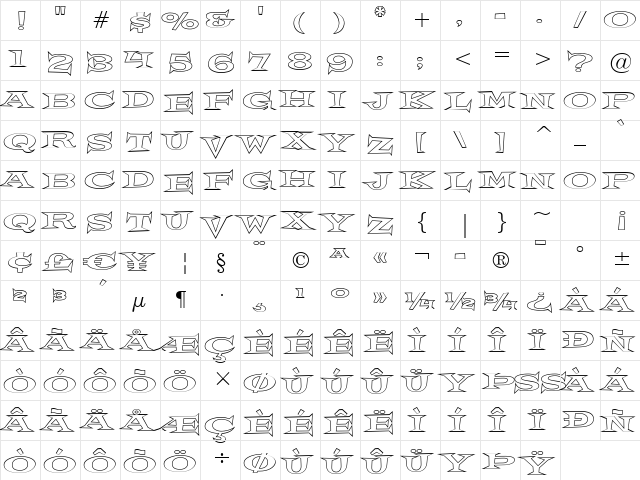
Crazy Loot BTN Outline Regular
Design Context for Crazy Loot BTN Outline Typeface
Crazy Loot BTN Outline brings ornamental detail and strong personality to headlines and identities, where visual impact matters more than quiet functionality.
Font Pairing: Pair with a clean neutral sans-serif for body copy to let Crazy Loot BTN Outline's character lead without overwhelming the composition.
Pro Tip: Treat Crazy Loot BTN Outline as the centrepiece of your typographic hierarchy. One strong heading set in a decorative face can carry an entire layout.